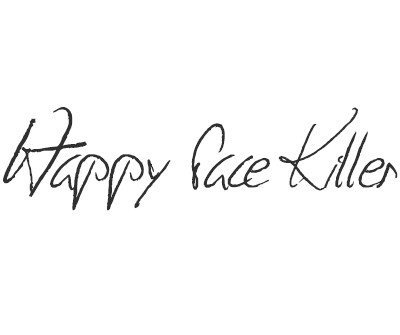
This is the handwriting of Keith Jesperson Aka The Happy Face Killer which was extracted from correspondence letters from Keith and Font Monger
Uppercase: Yes, varies (see images to see available characters)
Lowercase: Yes, varies (see images to see available characters)
Punctuation: Limited
Accents: No
Style: Serial Killer, Handwriting
Numbers: No